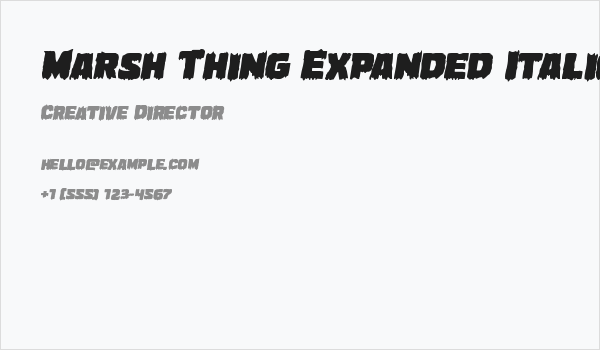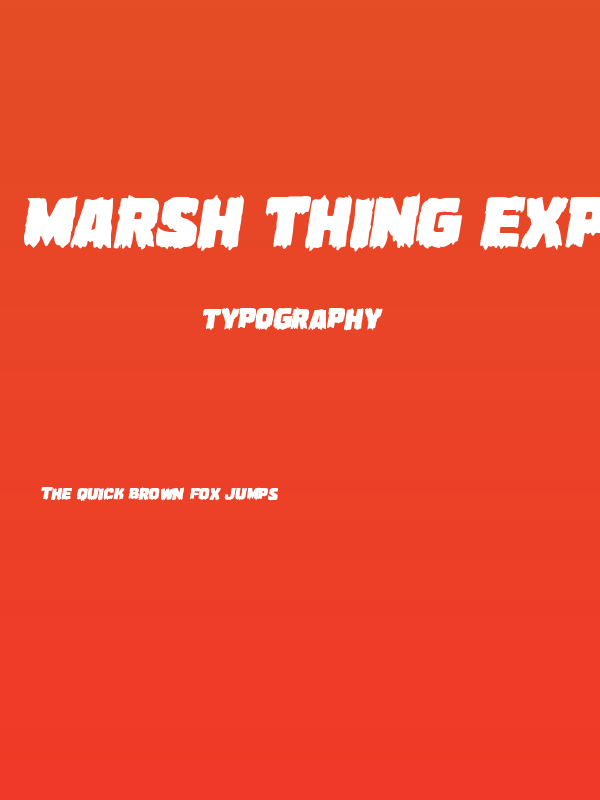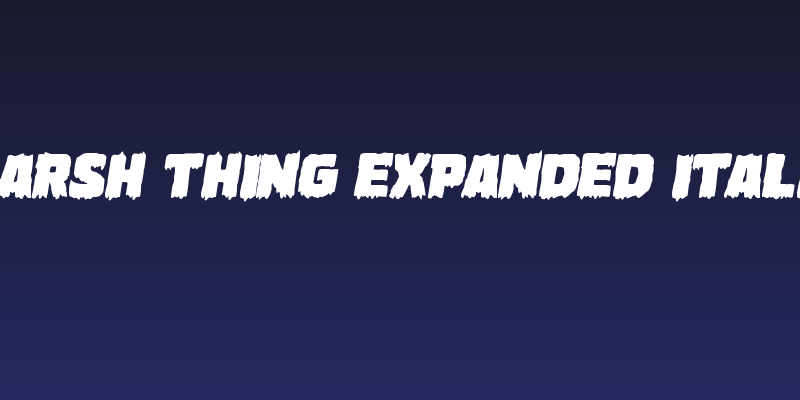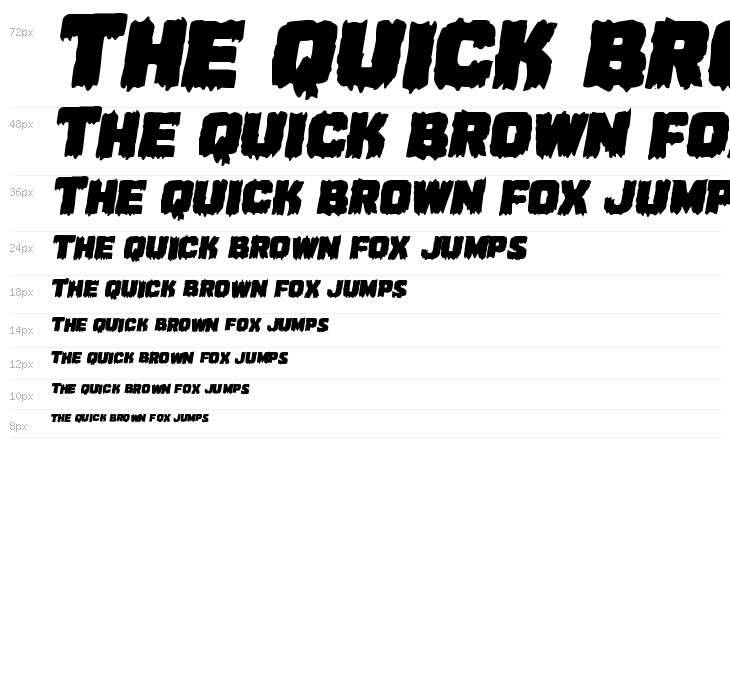
Marsh Thing Expanded Italic Font
Marsh Thing Expanded Italic Description
This font features a bold and dynamic style with a rugged, textured appearance that resembles organic or natural forms. The characters are heavily expanded, giving them a wide stance, and they are italicized, adding a sense of movement and energy. The strokes are thick and uneven, creating a high contrast between the filled areas and the negative space. This design evokes a sense of mystery and adventure, making it suitable for themes related to nature, horror, or fantasy. The font includes a full set of uppercase and lowercase letters, numbers, and a variety of special characters, ensuring versatility in usage.
| Proposed Projects | Ideal for horror movie posters, adventure-themed graphics, Halloween invitations, or fantasy book covers. |